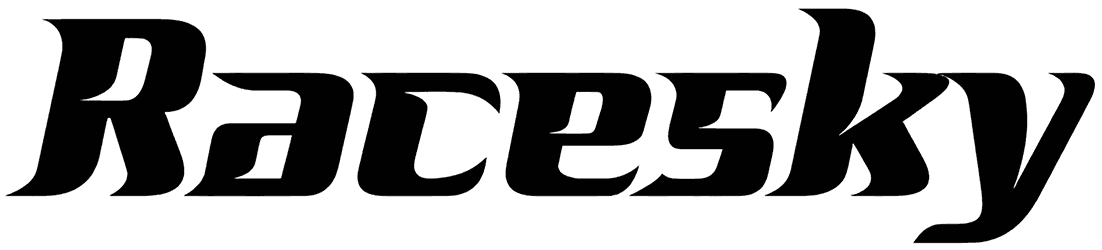
My Puma Font
Today’s techno font is the perfect imitation of the Puma brand logo. My Puma is designed with big blocky characters and can be used for any digital texts or headlines, sci-fi, futuristic movies, and sports news titles. This 80s sans serif font will convey a kind of powerful vibe and give a cool look to your texts.
Designed by: Samuel Park